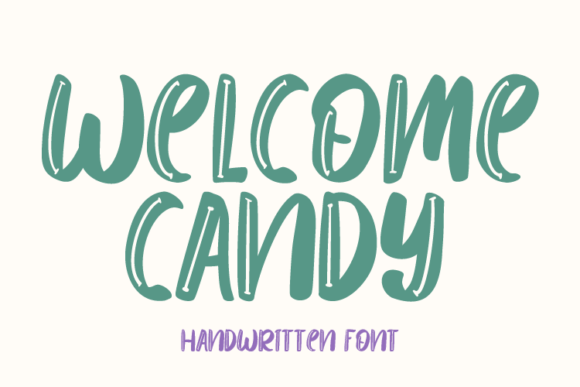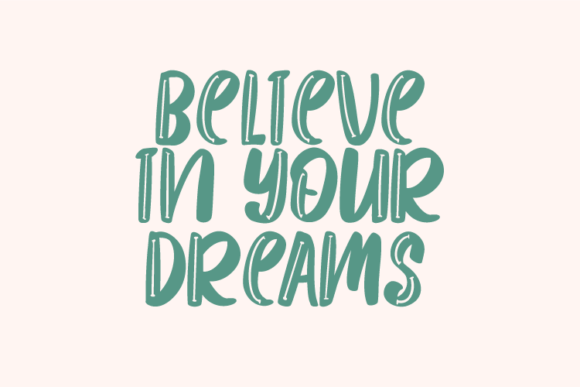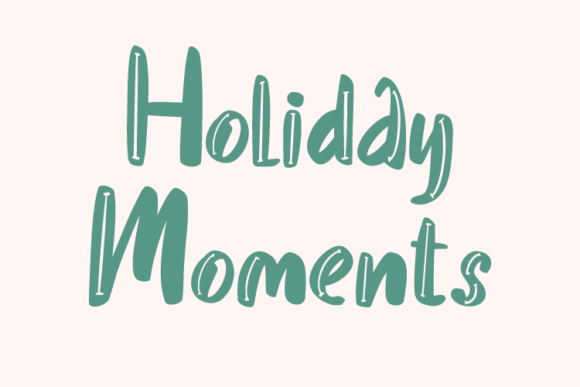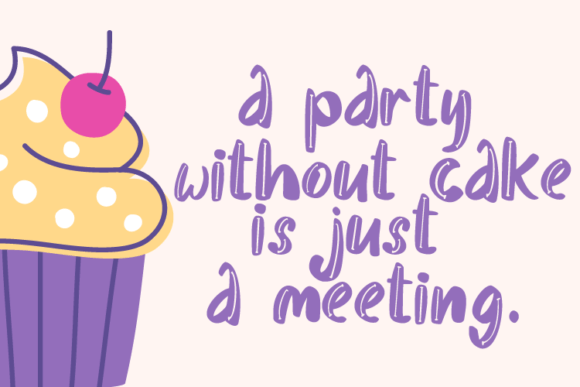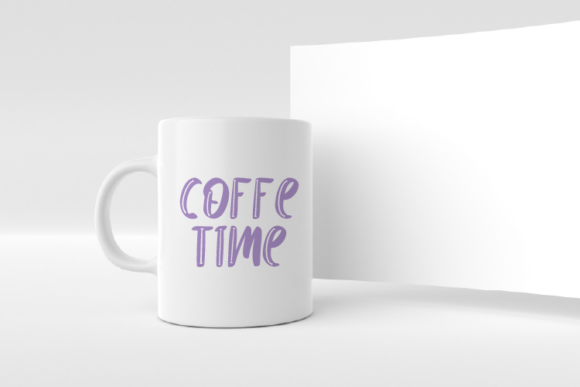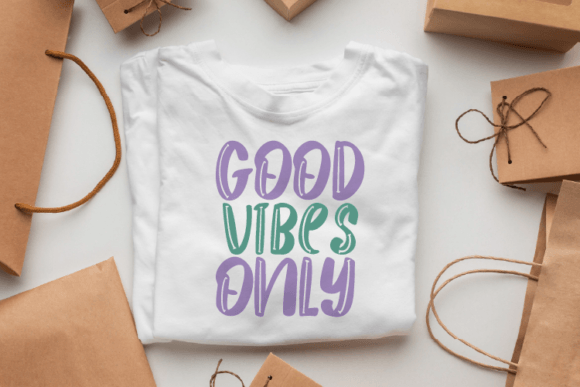
Welcome Candy is a sweet and delicate handwritten font. Dainty and joyful, this font will be ideal for writing wedding invitations, cards, or any other design that may need a romantic, personalized touch!